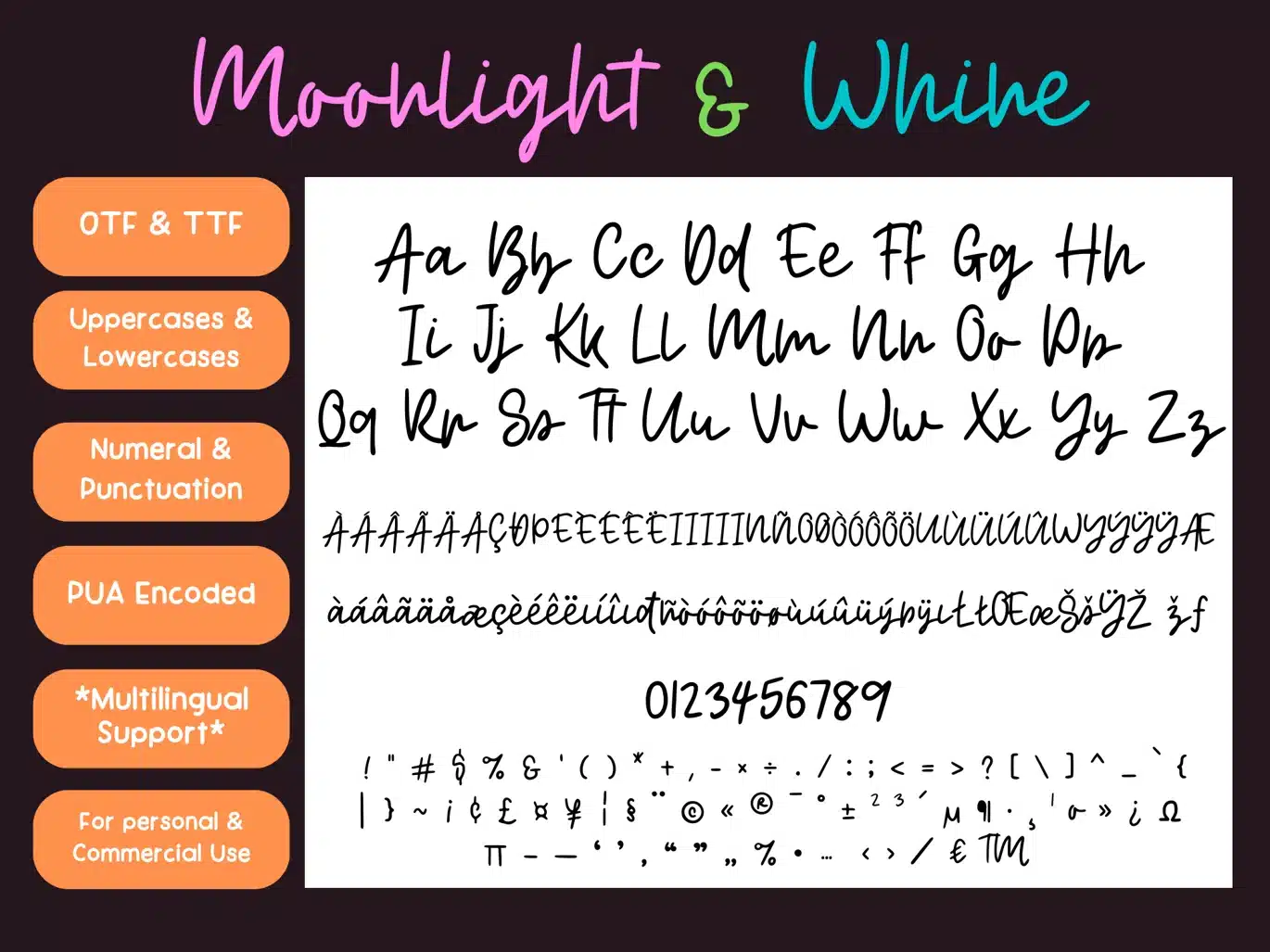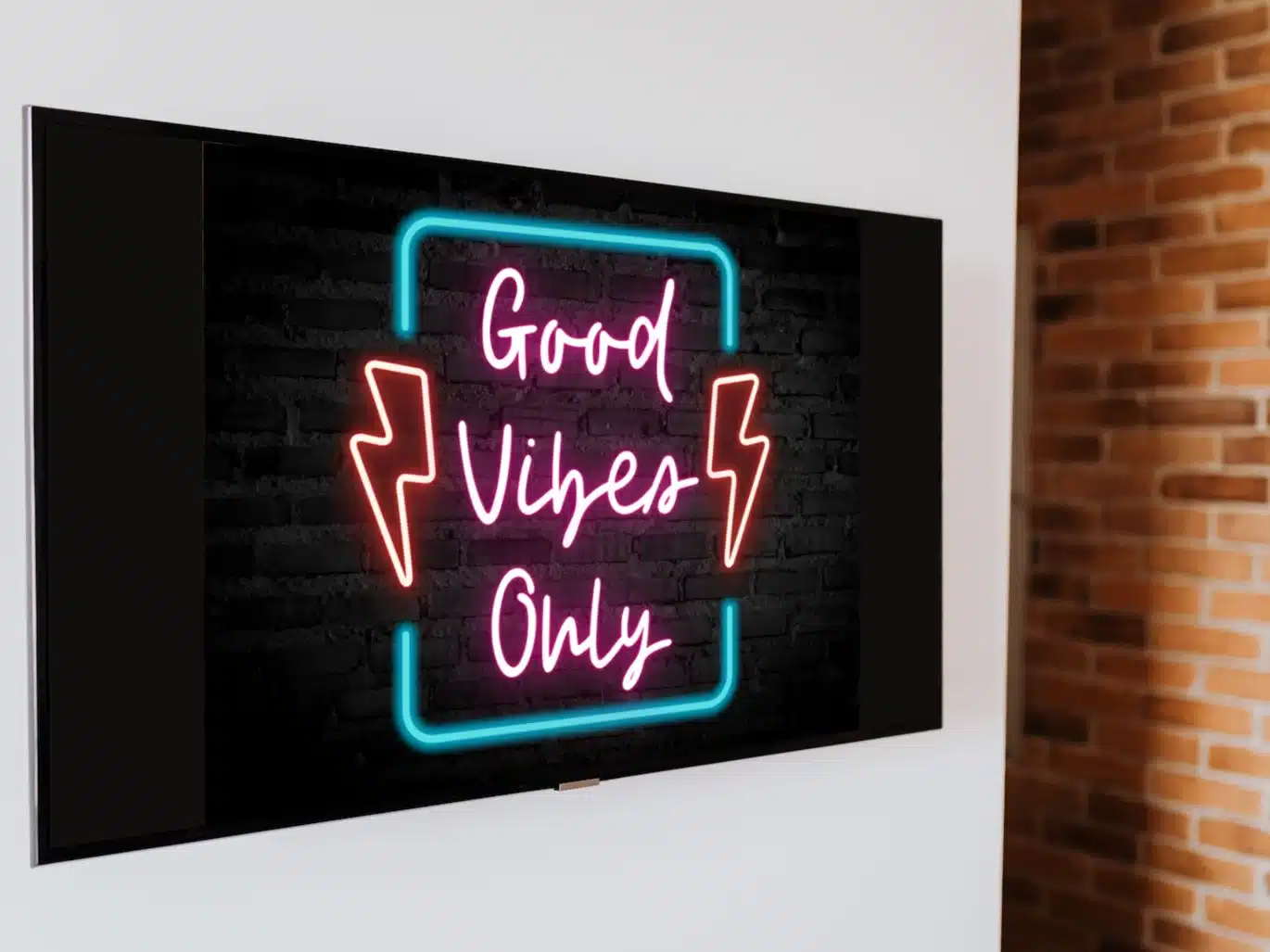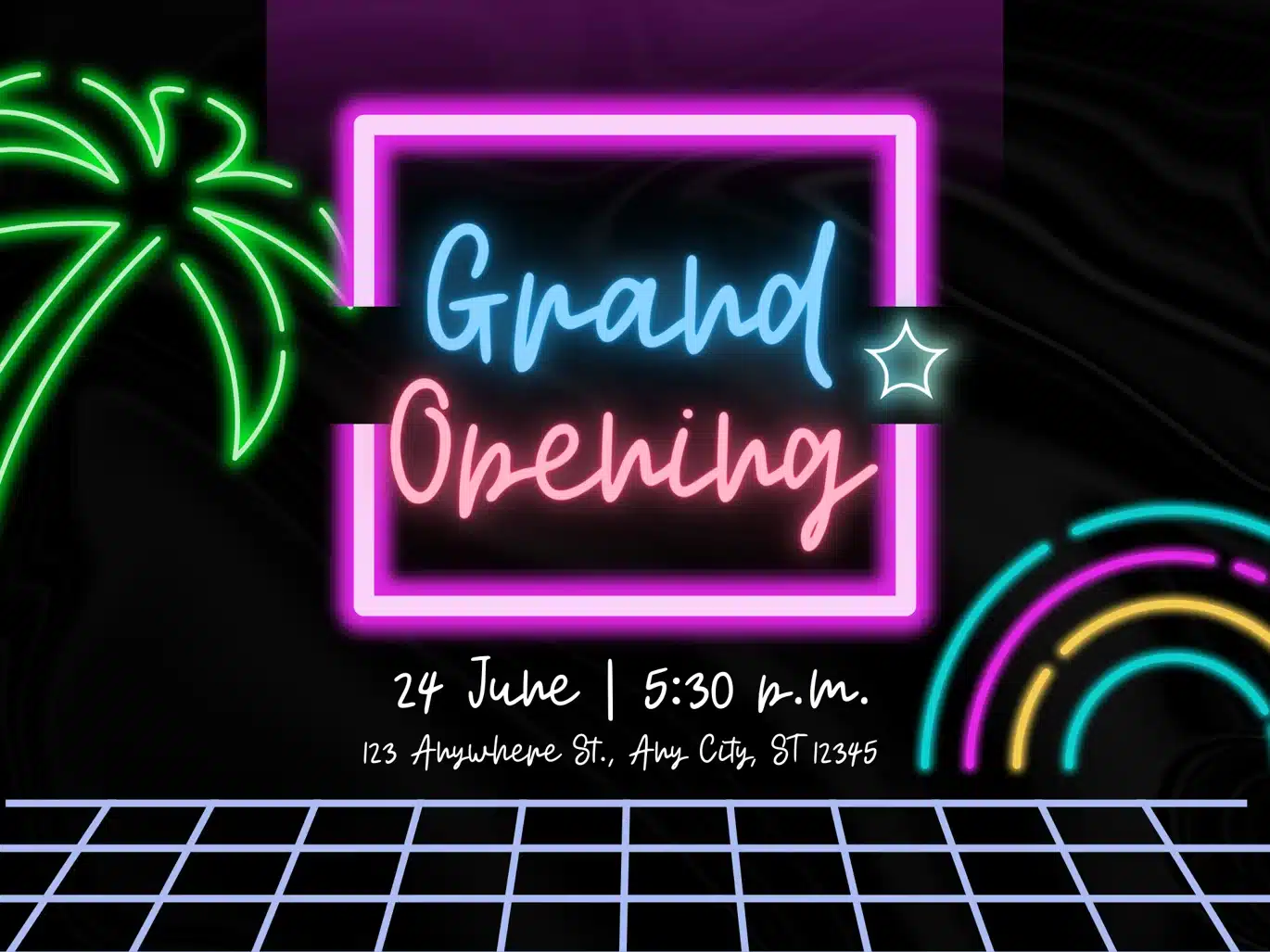
Moonlight and Wine Handwrtten Script Neon Font
The Moonlight & Wine Font is a Handwritten Monoline Font that is perfect for Neon effect! It can be used as a Neon Handwritten Script Font, Monoline Script Font, Signature Script Font, Summer Handwriting Font, Neon Party Font, Neon Signboard Font, Neon Banner Font, Neon Font for Party Invitations, DJ Logo Font
Perfectly suitable for numerous use such as quotations, banners, logos, product packaging, titles, headers, Business cards, menu lists, and invitation cards!